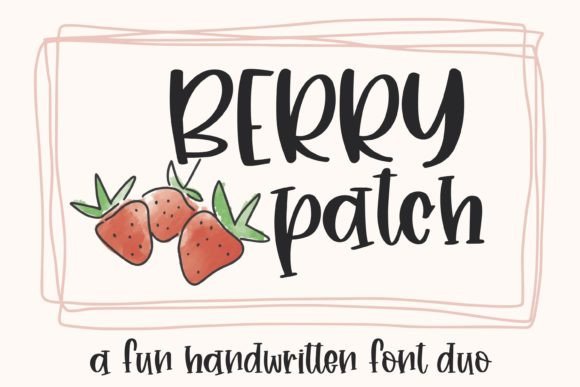
In a world where individuality reigns supreme, it is your creative prowess that sets the stage for self-expression. In this realm of boundless imagination, allow us to introduce Berry Patch Font, a script font that epitomizes the essence of elegance and charm, ready to transform your designs into masterpieces that captivate the senses.
Picture a font that dances across your screen, its curves like delicate vines twirling in a gentle breeze, each letter a testament to the beauty of human artistry. Berry Patch Font is that perfect blend of sophistication and playfulness, inviting you to explore a world where creativity knows no bounds.
With its intricate details and friendly demeanor, Berry Patch Font transcends the ordinary, becoming an indispensable tool for those seeking to leave an indelible mark on the world of design. Its versatility knows no limits, extending from heartfelt invitations to whimsical wall art, from personalized logos to eye-catching social media posts.
Immerse yourself in the boundless possibilities that await you with Berry Patch Font. Its effortless flow and timeless aesthetic will elevate your designs to new heights, captivating your audience and leaving them spellbound. Whether you're a seasoned designer or just starting your creative journey, Berry Patch Font is your trusty companion, guiding you towards design excellence.
So, embrace the allure of Berry Patch Font, the script font that will ignite your creativity and transform your designs into works of art. Let your imagination run wild as you delve into a world where elegance and charm dance together in perfect harmony.